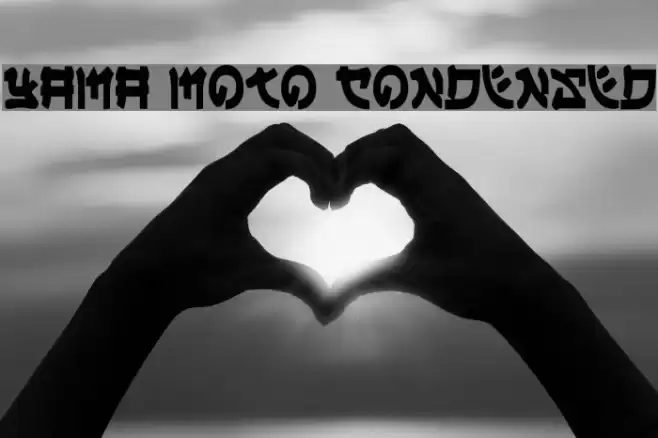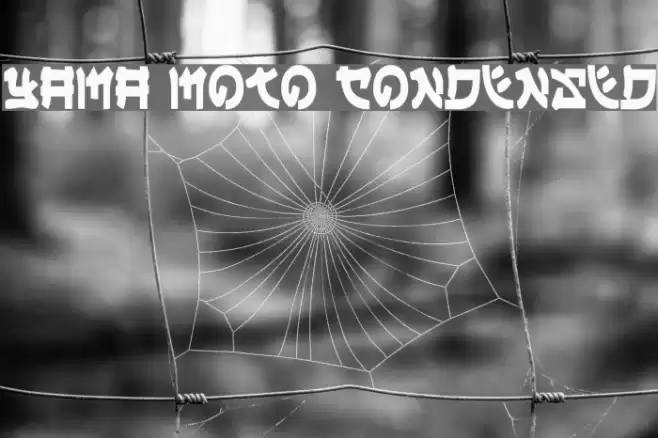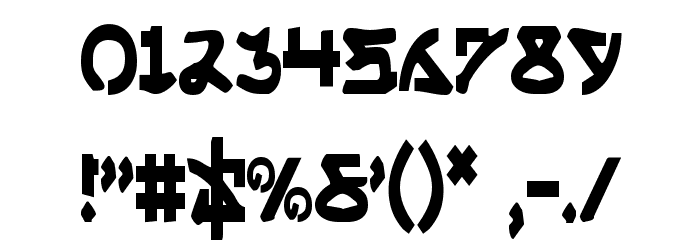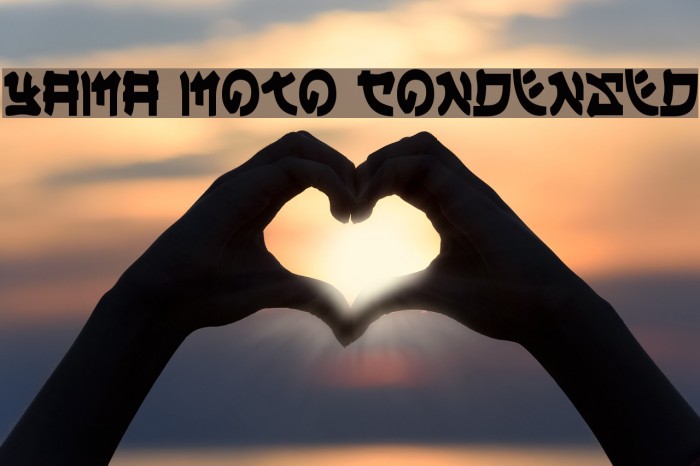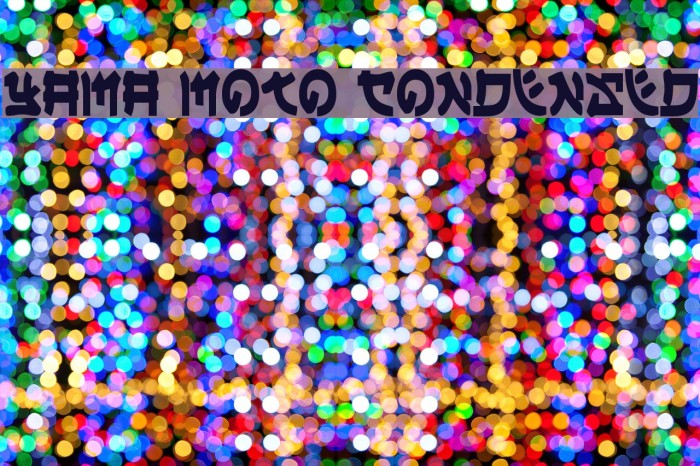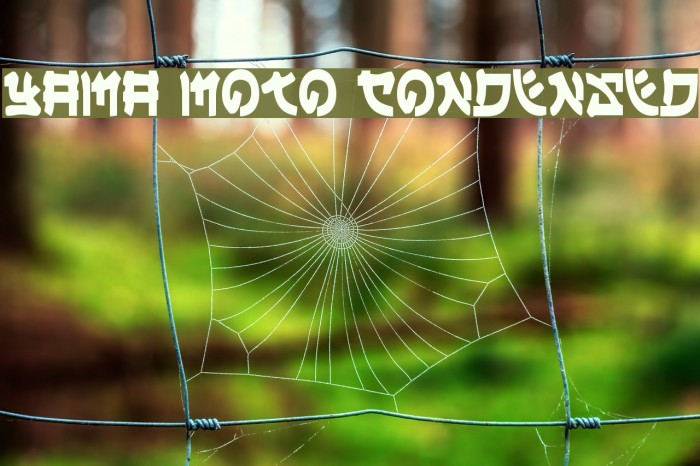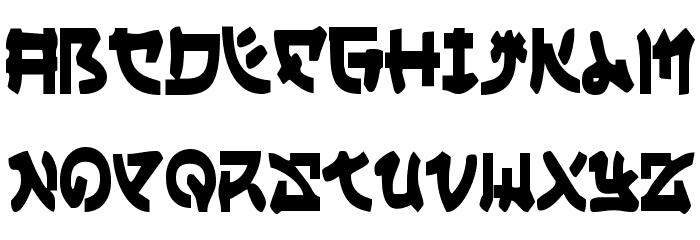
Yama Moto Condensed Font
Yama Moto Condensed Description
This font features a bold and striking design with a condensed width, creating a compact and impactful appearance. The characters are uniquely styled with angular and geometric shapes, giving it a modern and futuristic feel. The uppercase and lowercase letters maintain a consistent style, with sharp edges and distinct forms. Numbers and special characters are designed to match the overall aesthetic, ensuring a cohesive look across all text elements. The font's boldness and unique style make it stand out, suitable for projects that require a strong visual impact.
A bold, condensed font with angular, geometric shapes and a modern, futuristic style from Asian fonts.
- Proposed Projects: Ideal for branding, posters, video game graphics, and any project needing a bold, modern aesthetic.
- Character Spacing: Tight